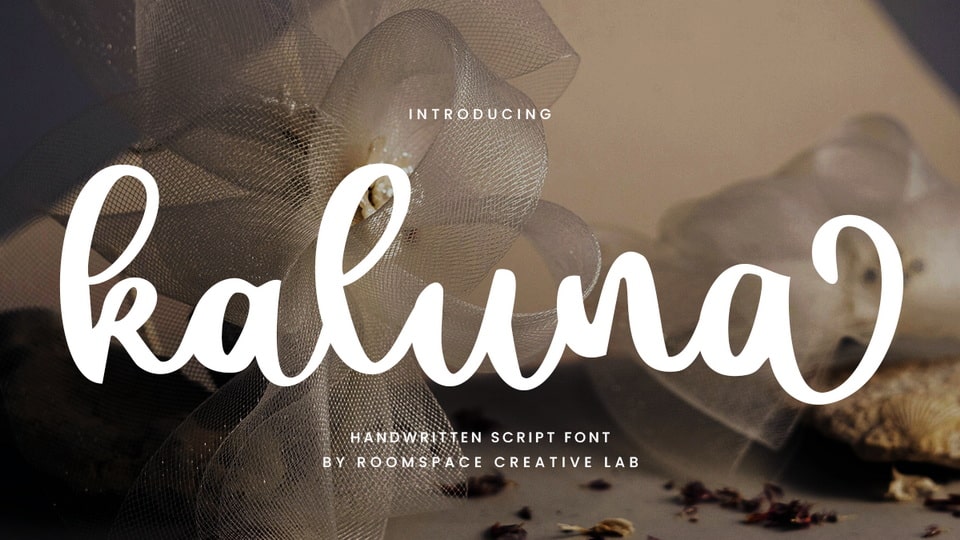
Download Kaluna font, a beautifully handwritten script typeface that brings elegance, warmth, and personal charm to every design with soft curves, graceful connections, and a natural flow.